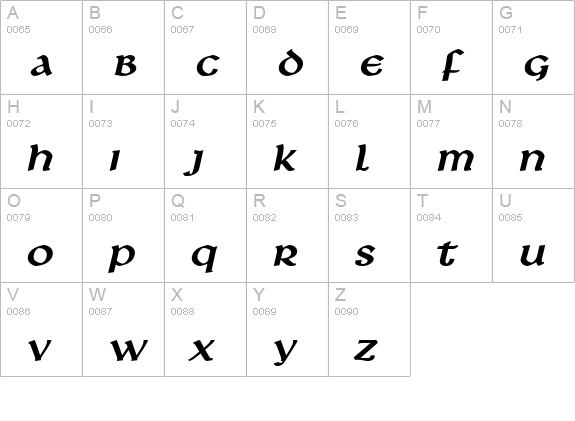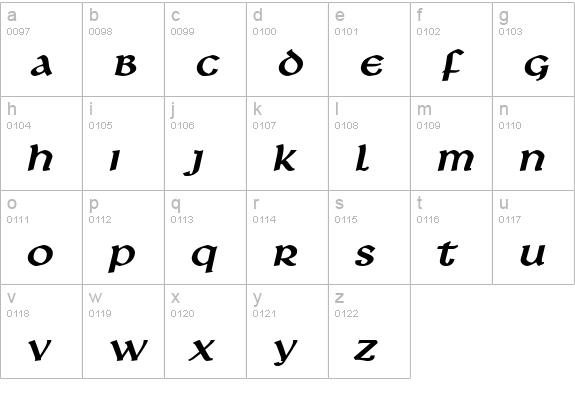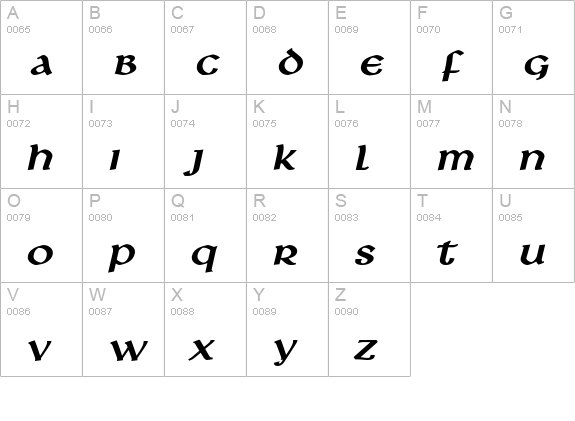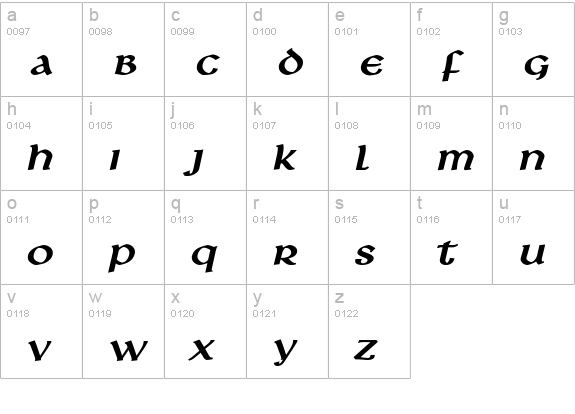
Leo Wide BoldItalic is a distinctive, extended-width variant in the Leo typeface family \xE2\x80\x94 well suited to design and typography projects.
Introducing Leo Wide BoldItalic font – a captivating typeface that exudes confidence and elegance. With its unique blend of boldness and italics, this font effortlessly adds a touch of sophistication to any design project. Leo Wide BoldItalic font stands out with its wide letterforms, offering a modern and eye-catching appearance that captures attention instantly. Its bold strokes are balanced by the subtle curves of the italics, creating a harmonious visual experience that is both powerful and graceful. Whether you're designing a logo, creating a poster, or crafting a striking headline, Leo Wide BoldItalic font is sure to leave a lasting impression. Its versatility allows it to be used in a variety of contexts, from fashion editorials to corporate presentations, making it a valuable asset for any designer. And the best part? Leo Wide BoldItalic font is available for free! Yes, that's right – you can download this exceptional font without spending a dime. Simply head over to FontsMarket.com, where you'll find a vast collection of high-quality fonts, including Leo Wide BoldItalic. Embrace the creative freedom and unleash your design potential with this remarkable typeface. So, don't miss out on the opportunity to elevate your designs with Leo Wide BoldItalic font. Download it for free at FontsMarket.com and experience the seamless blend of boldness and italics that will make your projects truly stand out.